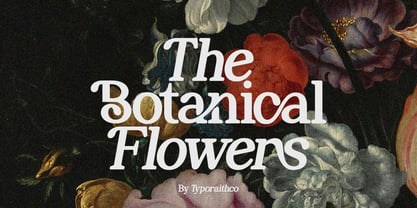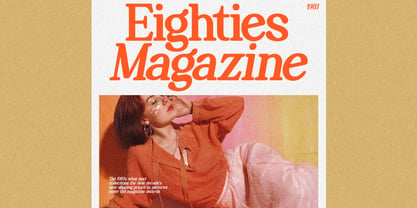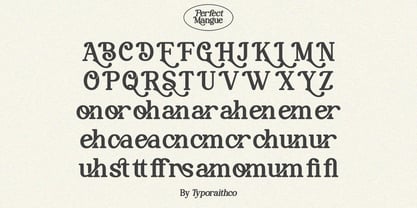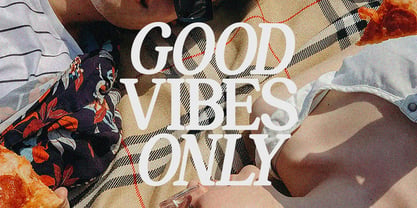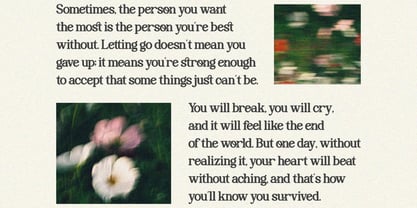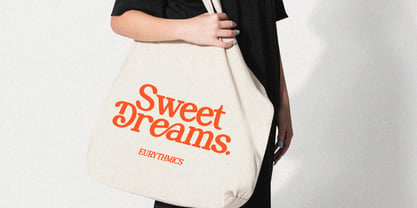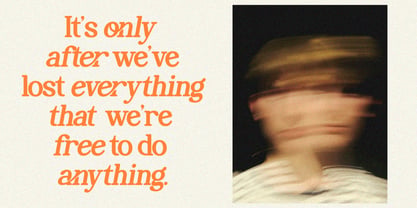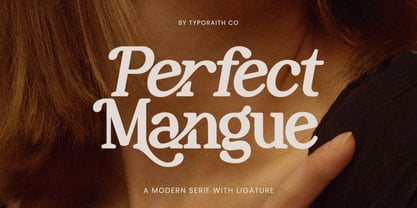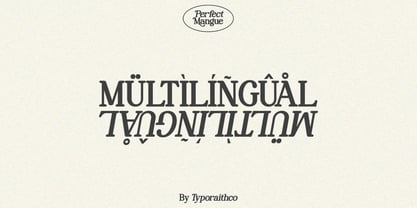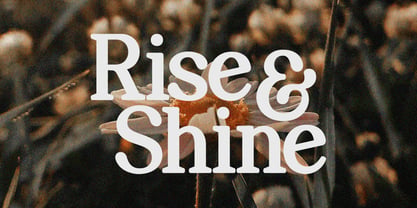
Perfect Mangue
The Perfect Mangue Font Family was designed by Rendy Riyananda and published by Typoraith Co. Perfect Mangue contains 2 styles and family package options. More about this family
Perfect Mangue is an elegant serif font with a italic style that brings a classic yet modern feel. With a bold yet soft curve letterform, this font is designed to steal the show in every design. This font is perfect for use in luxury branding, editorial, fashion logos, magazine covers, wedding invitations, and social media. The combination of the italic of the letters and the subtle serif details give a dynamic, professional, and artistic impression at the same time. Features: Two styles : Regular & Italic Perfect Mangue Files Alternates & Ligatures Uppercase & lowercase Full numbers and punctuation Multilingual support Perfect Mangue is not just a font, it is an expression of style and character in every word you display. Suitable for designers who want to convey a visual story with the power of elegant and unique typography.